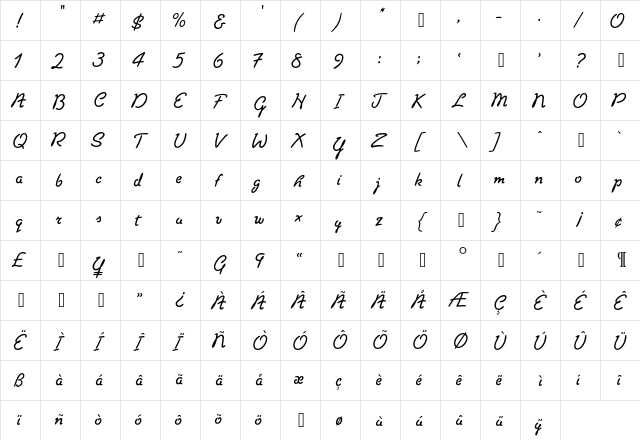
FrenchLetters Plain
Design Context for FrenchLetters Typeface
FrenchLetters takes a measured approach to typography — its balanced proportions and neutral character make it a reliable workhorse for both digital and print work.